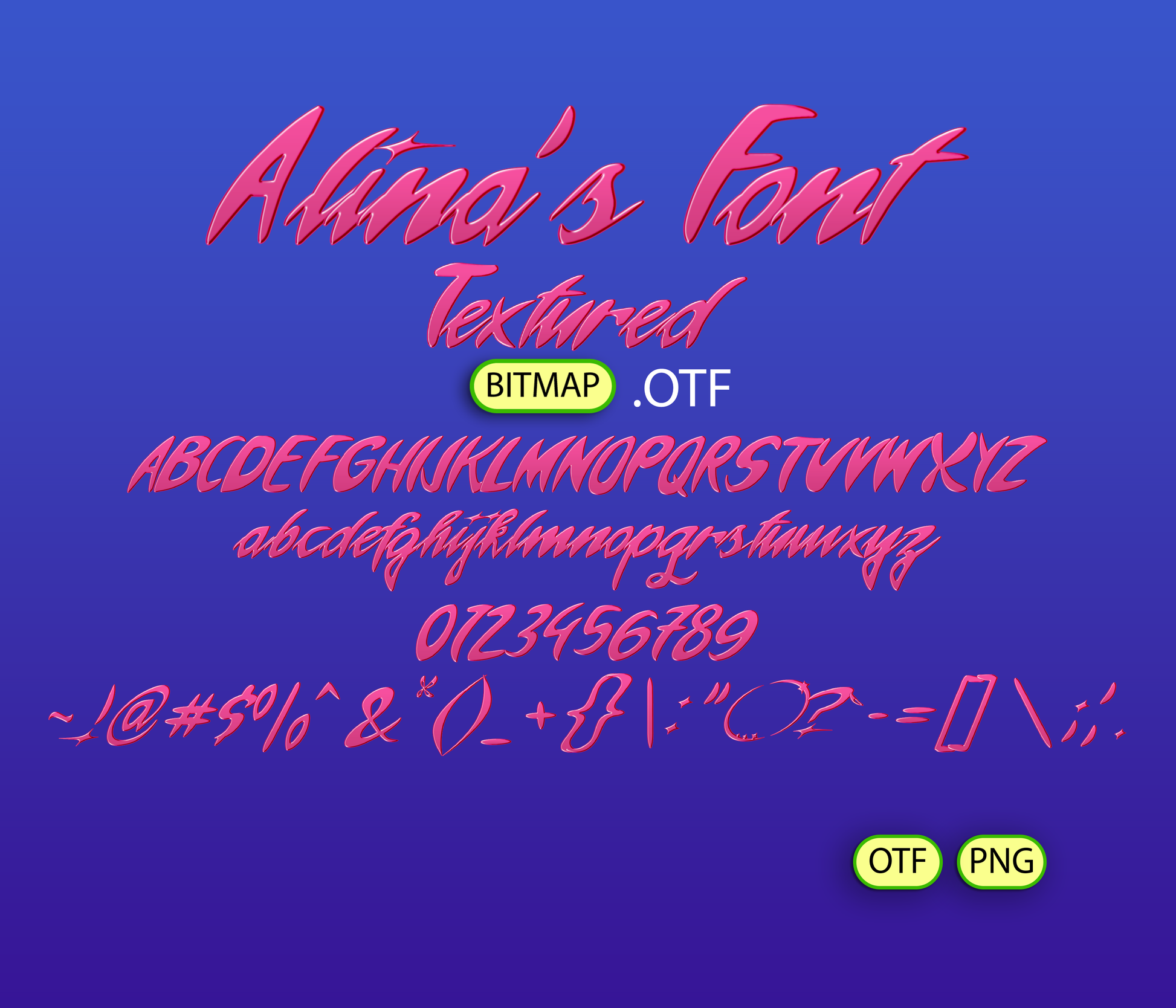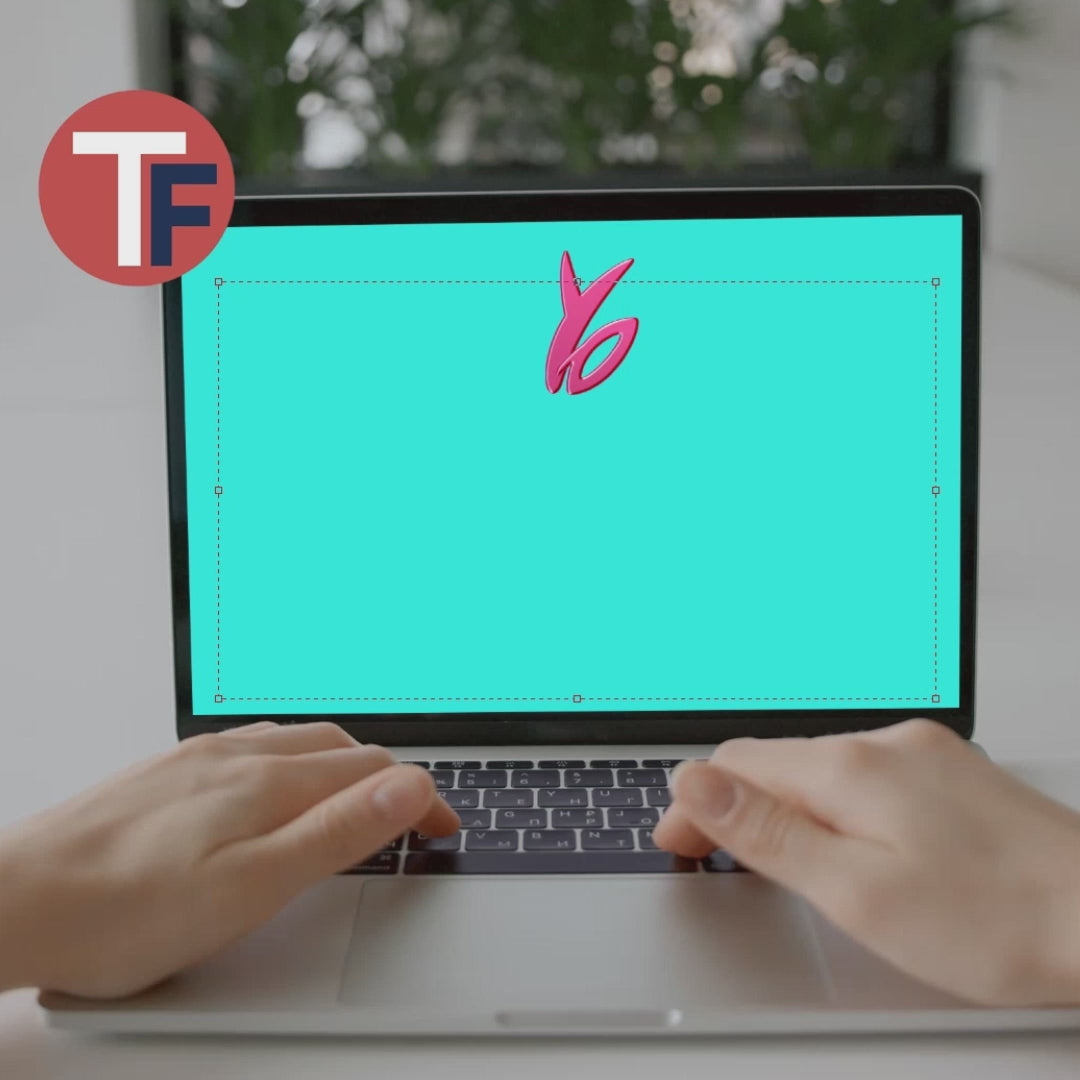
Magical Fairy Academy Font Textured
Magical Fairy Academy Font
Step into the enchanting realm of teen fairies and magical adventures with our Magical Fairy Academy font, inspired by the beloved animated series about a group of stylish fairy friends. This spellbinding typeface captures the essence of girl power, friendship, and mystical transformations, bringing a touch of that animated magic to your designs.
What font is the Magical Fairy Academy font?
Imagine a typeface that embodies the spirit of magical girl anime, with sleek, energetic letterforms that capture the show's vibrant personality. Our Magical Fairy Academy font is designed to mirror the look of those dazzling transformation sequences, featuring dynamic, sparkling letters that seem to shimmer with fairy dust. It includes a comprehensive character set with alphabets, numbers, and special symbols, perfect for a wide range of enchanting design projects.
• Textured and Non-Textured Variants: Available in both a playful, animation-inspired style and a clean, non-textured version.
• Comprehensive Character Set: Offers a wide range of characters for complete design flexibility.